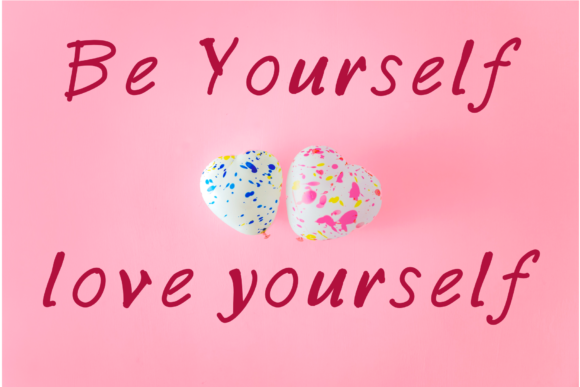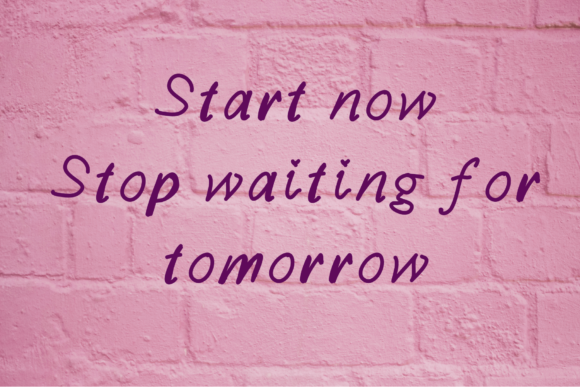
Introduction to La Fiesta Font
La Fiesta is a flowing handwritten font, described by an elegant touch, perfect for your favorite projects.
Key Features of La Fiesta Font
Why Choose La Fiesta Font?
La Fiesta Font offers exceptional quality and versatility, making it a valuable addition to your design toolkit. Whether you’re creating for personal projects or commercial use, La Fiesta Font delivers professional results.